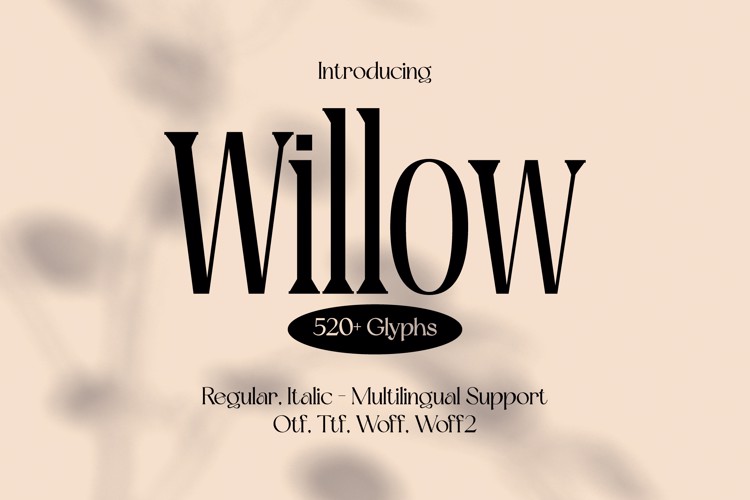
Willow Font
🎨 Font Name: Willow by Minimalist Art Studio
🎨 Font Description: Willow is a tall, delicate serif with over 520 glyphs and multilingual support—perfect for poetic layouts, refined branding, and minimalist elegance.
✔ Complete Latin set + multilingual diacritics
✔ Alternates, stylistic sets & ligatures
✔ Numbers, small caps, and extended punctuation
✔ Bonus italics and family styles